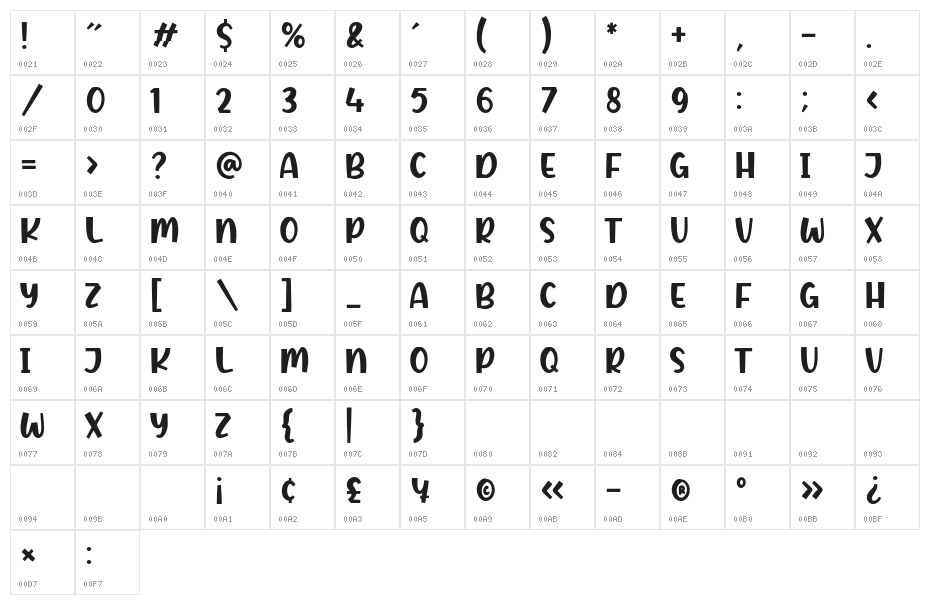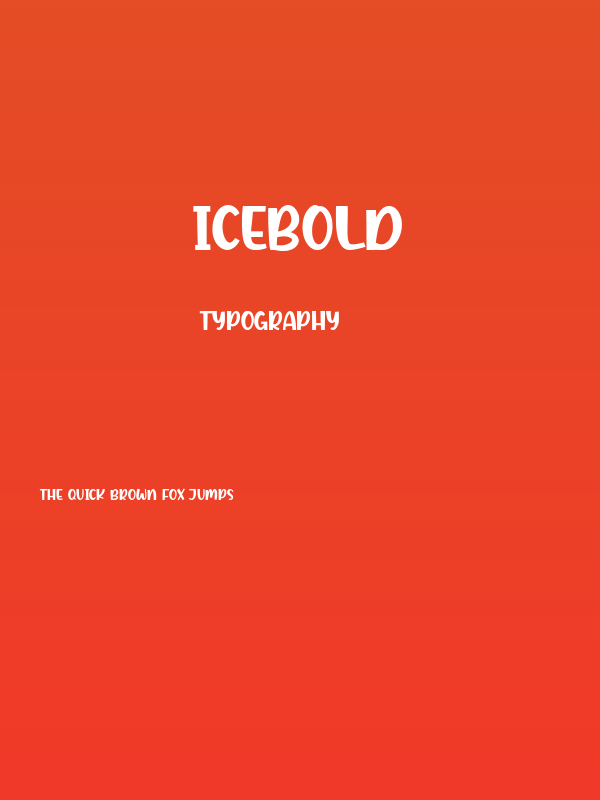
ICEBOLD Font
ICEBOLD Description
This font features a bold and playful style with rounded edges and a slightly condensed appearance. The uppercase and lowercase letters maintain a consistent width, creating a harmonious look. The numbers are equally bold, ensuring readability and impact. Special characters are designed with the same playful curves, adding to the font's cohesive aesthetic. The overall design is modern and friendly, making it suitable for a variety of creative applications.
| Proposed Projects | Ideal for children's books, playful branding, posters, and social media graphics. |